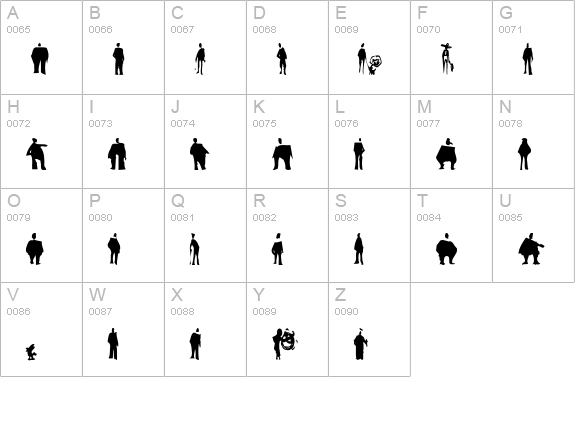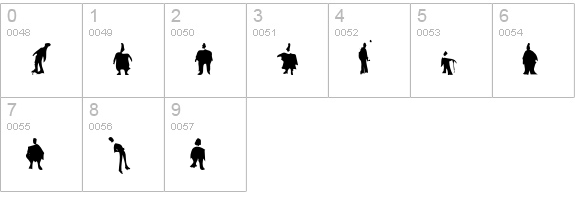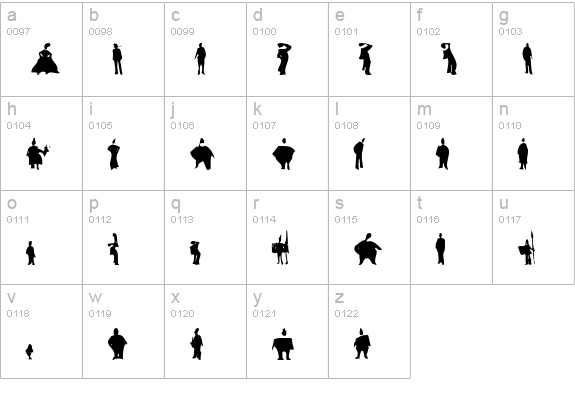
Tiparracus Font Details
Introducing Tiparracus font, a beautifully crafted typeface that exudes elegance and sophistication. With its sleek lines and graceful curves, this font is perfect for adding a touch of class to any design project. What sets Tiparracus font apart is not just its stunning aesthetics, but also the fact that it is completely free. Yes, you read that right - this font can be downloaded at absolutely no cost. It's a rare gem in the world of typography, where quality often comes with a hefty price tag. But fear not, because Tiparracus font is readily available for free download at FontsMarket.com. This online marketplace is a haven for font enthusiasts, offering a wide range of high-quality fonts for both personal and commercial use. And Tiparracus font is no exception - it's just one click away from becoming a valuable addition to your font collection. Whether you're a graphic designer working on a client project, a student creating a presentation, or simply someone who appreciates beautiful typography, Tiparracus font is a must-have. Its versatility allows it to shine in various contexts, from logo designs to website headers, from posters to invitations. Step up your design game with Tiparracus font - a free font with boundless potential. Download it now at FontsMarket.com and unlock a world of creative possibilities.